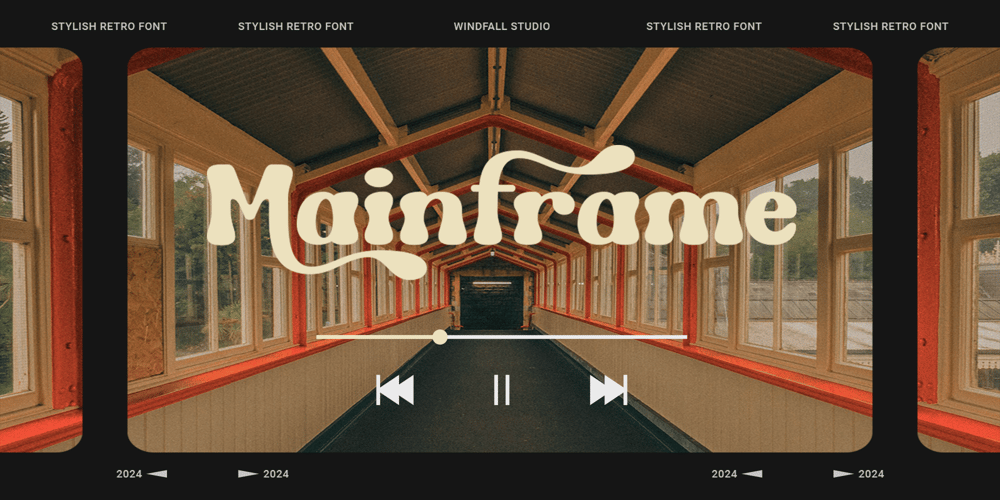
Mainframe
Mainframe font
Mainframe Font Family was designed by Anggia Putri Premitasari and published by Windfall Studio. Mainframe contains 1 styles and family package options. Mainframe is a stylish retro font that embodies the essence of vintage aesthetics fused with modern elegance. Inspired by classic typographic styles of the past, Mainframe brings a contemporary flair to retro design. With its sleek lines and refined forms, this font is perfect for creating sophisticated and eye-catching visuals that harken back to the golden era of design.